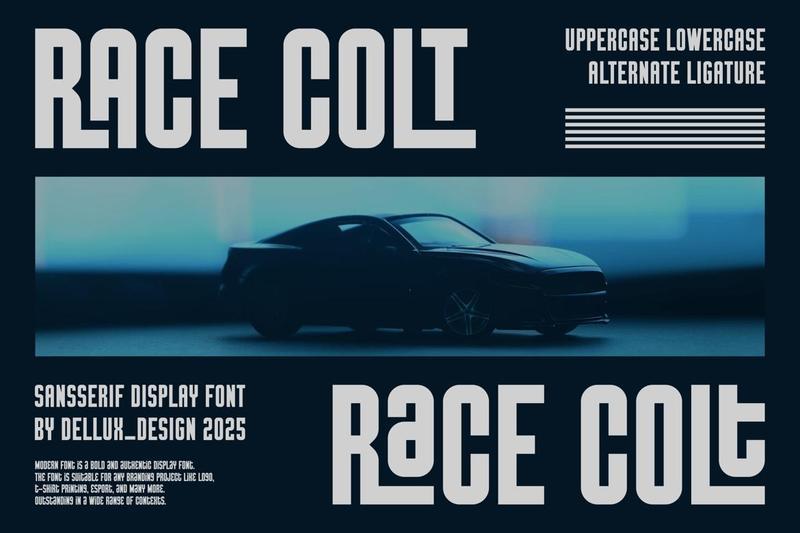
Race Colt 3MWSEQZ
**Race Colt** is a unique font. Can make it easier to convey the message in your design. Use for awesome display, labeling, movie sceen, poster, movie title, gigs, album covers, logos, and much more.